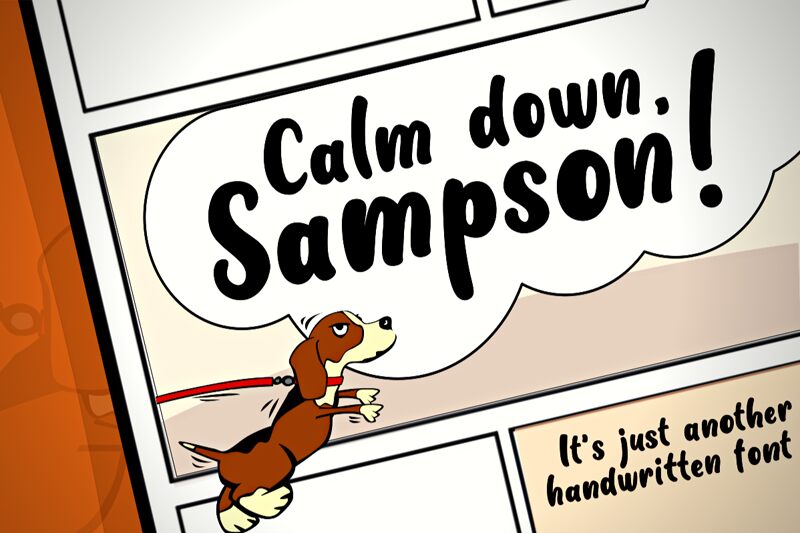
Calm Down Sampson
Calm Down Sampson, designed by Kurnia Setyadi, is a lively display font that brings a playful touch to any project. With its bold weight and comic style, this font is perfect for creating attention-grabbing headlines, posters, or children's book covers. Its unique design adds a sense of fun and excitement to your designs, making it suitable for projects such as party invitations, animated videos, or even branding for a toy store. Let Calm Down Sampson inject some vibrant energy into your next creative endeavor!